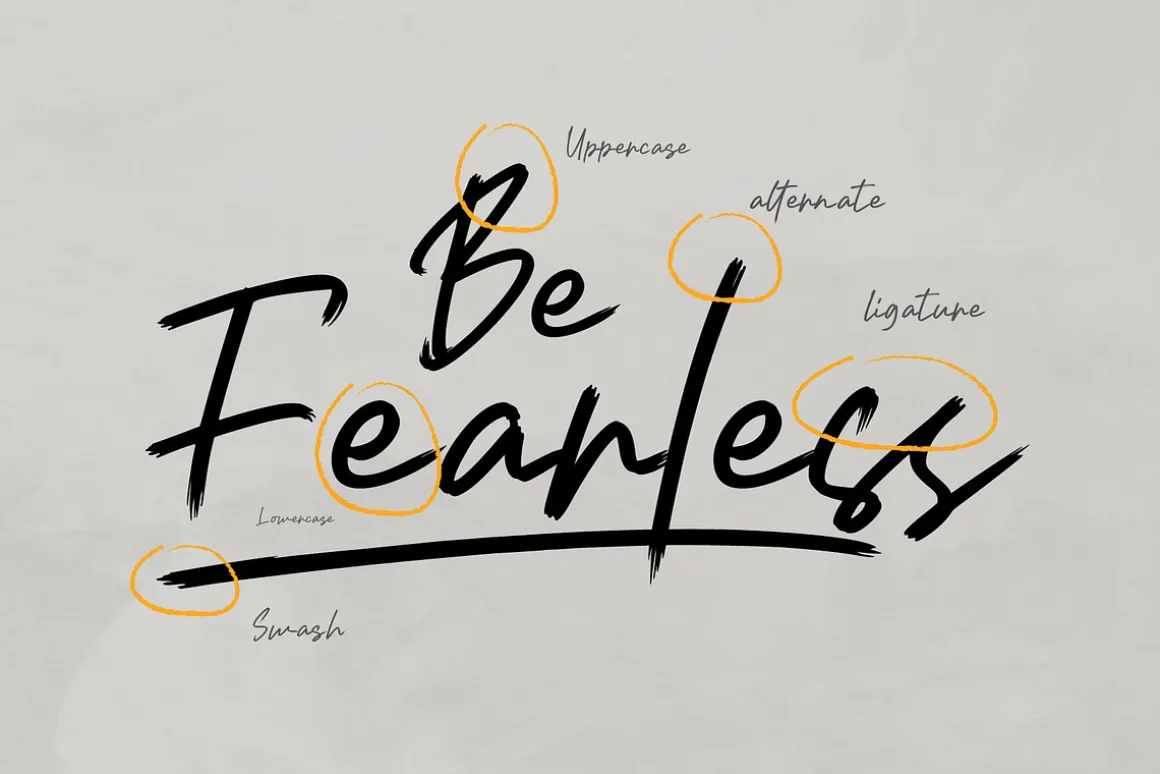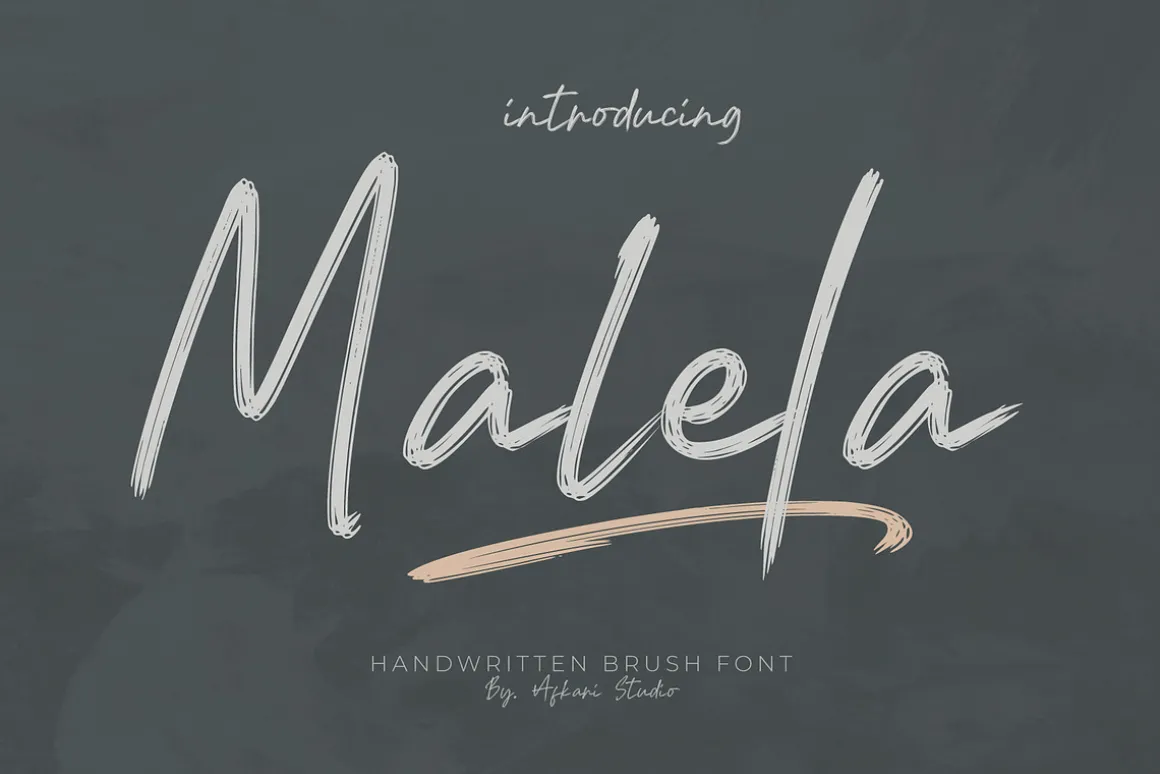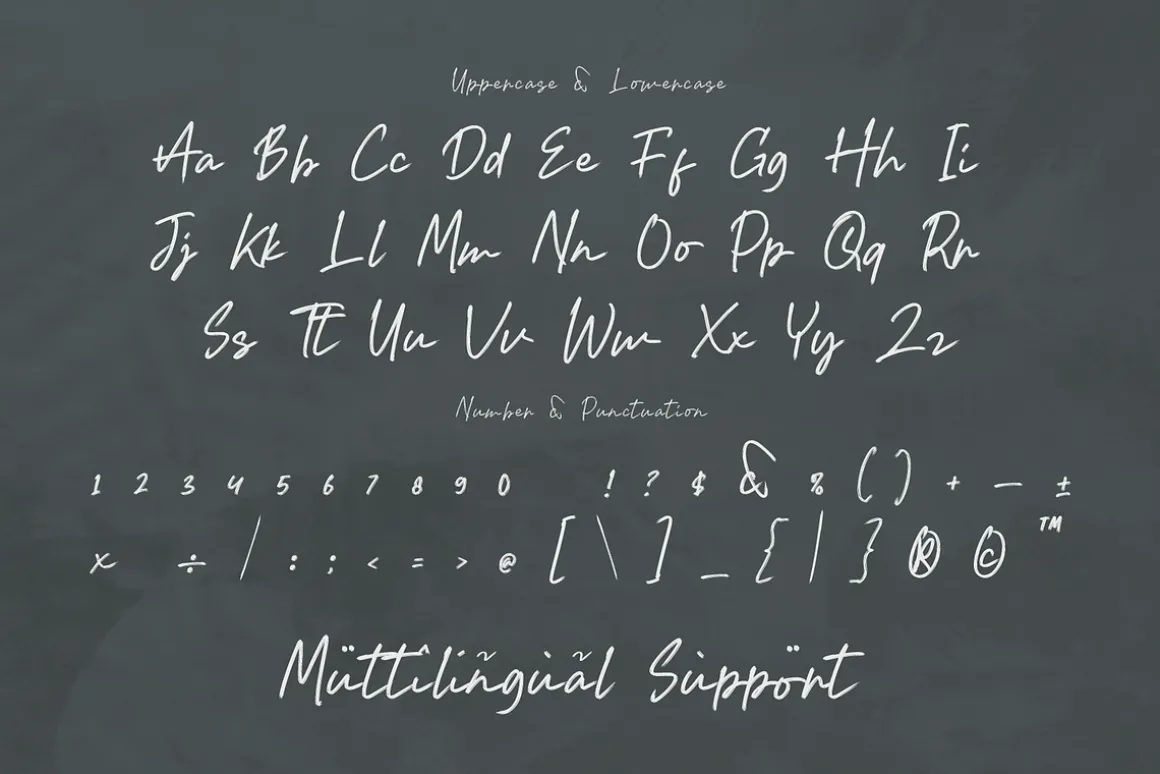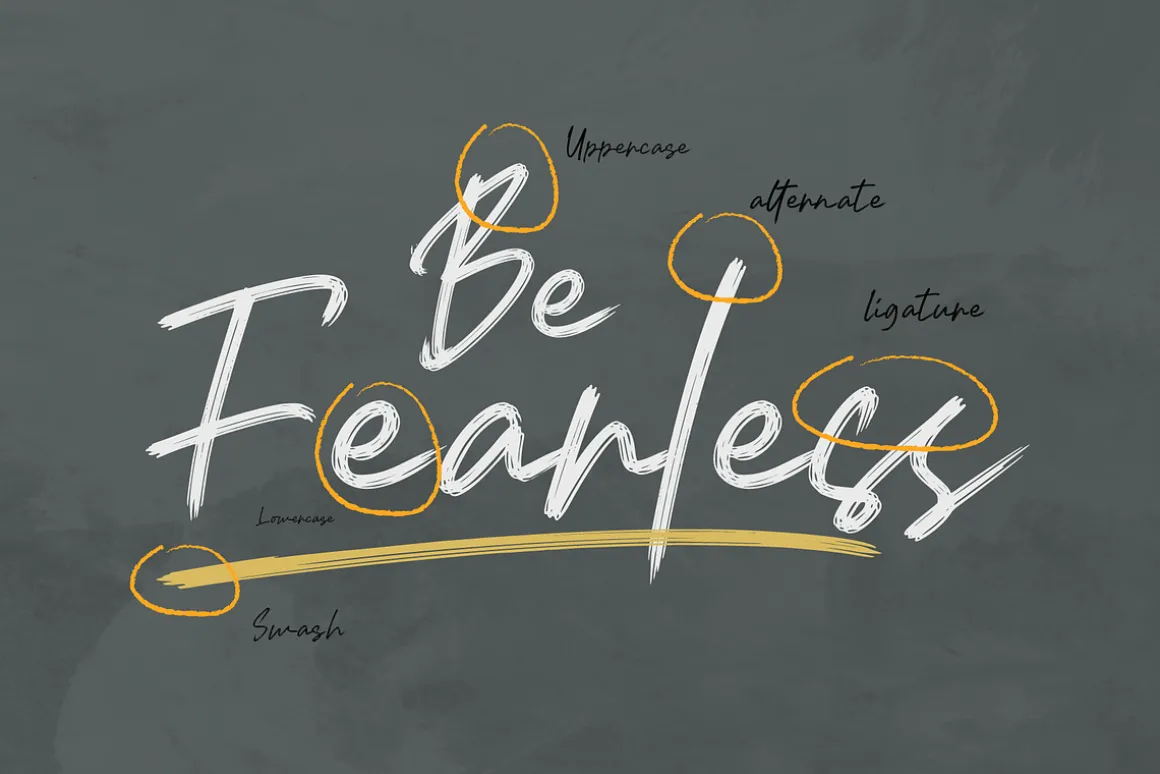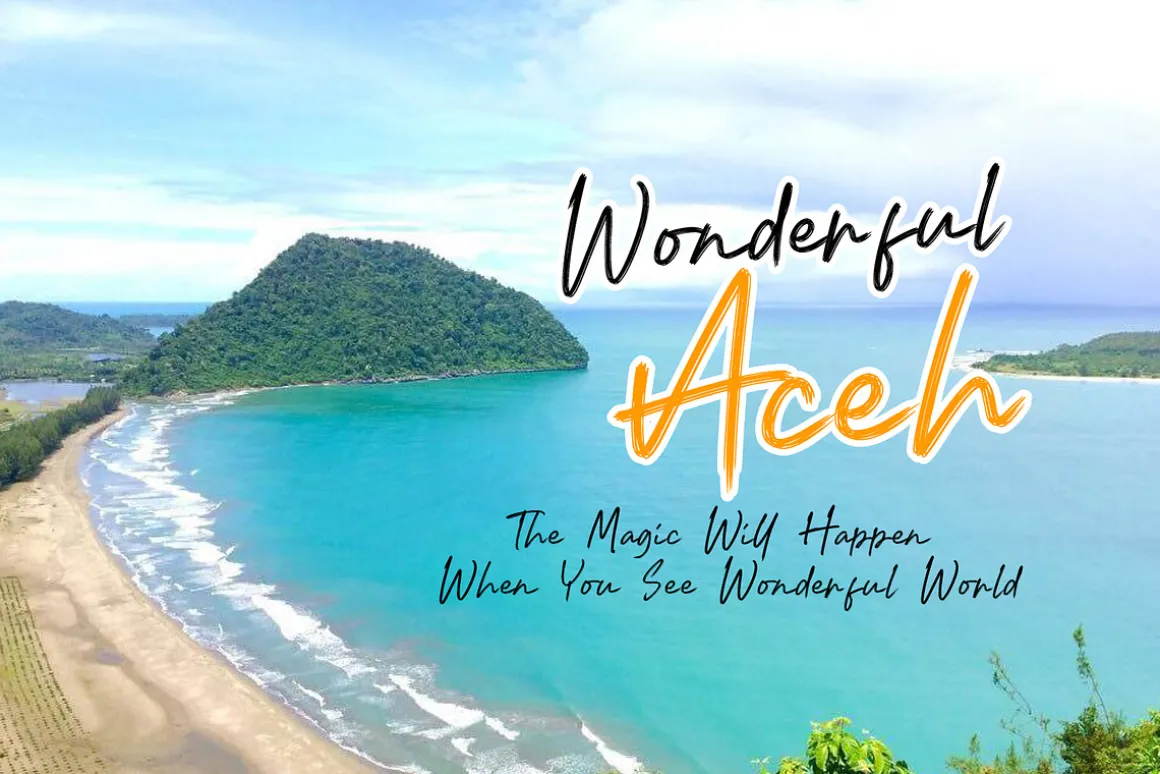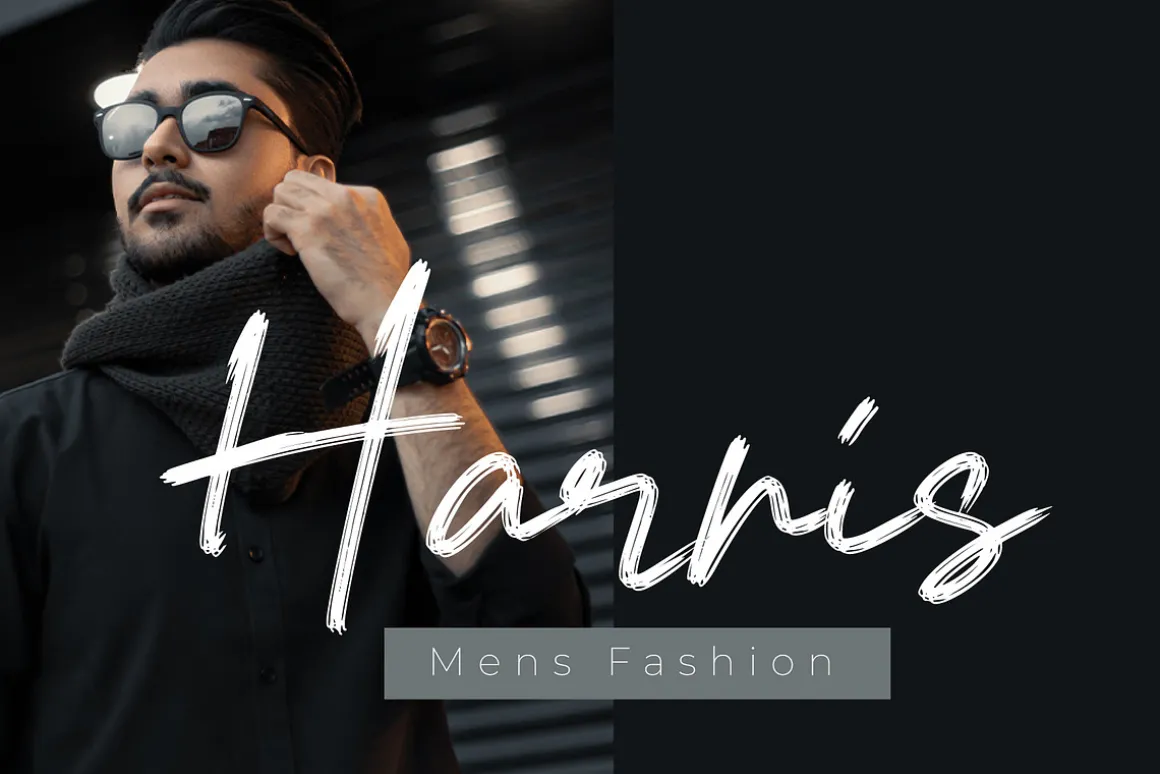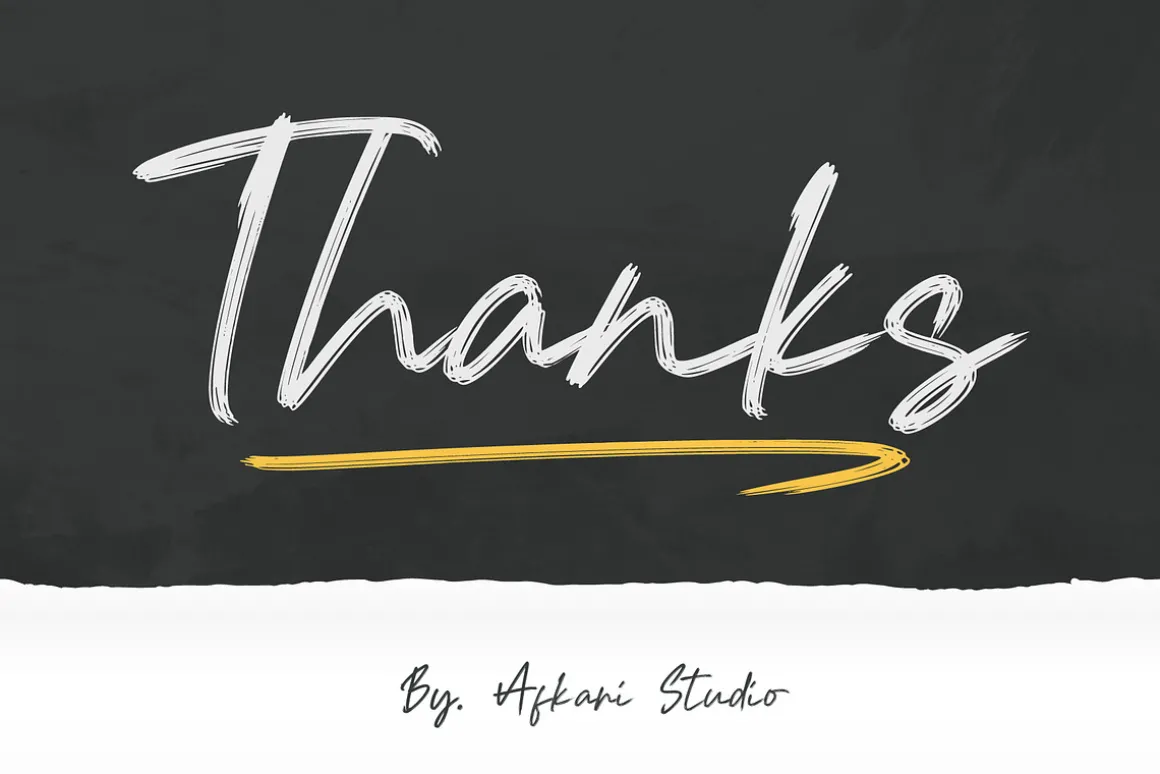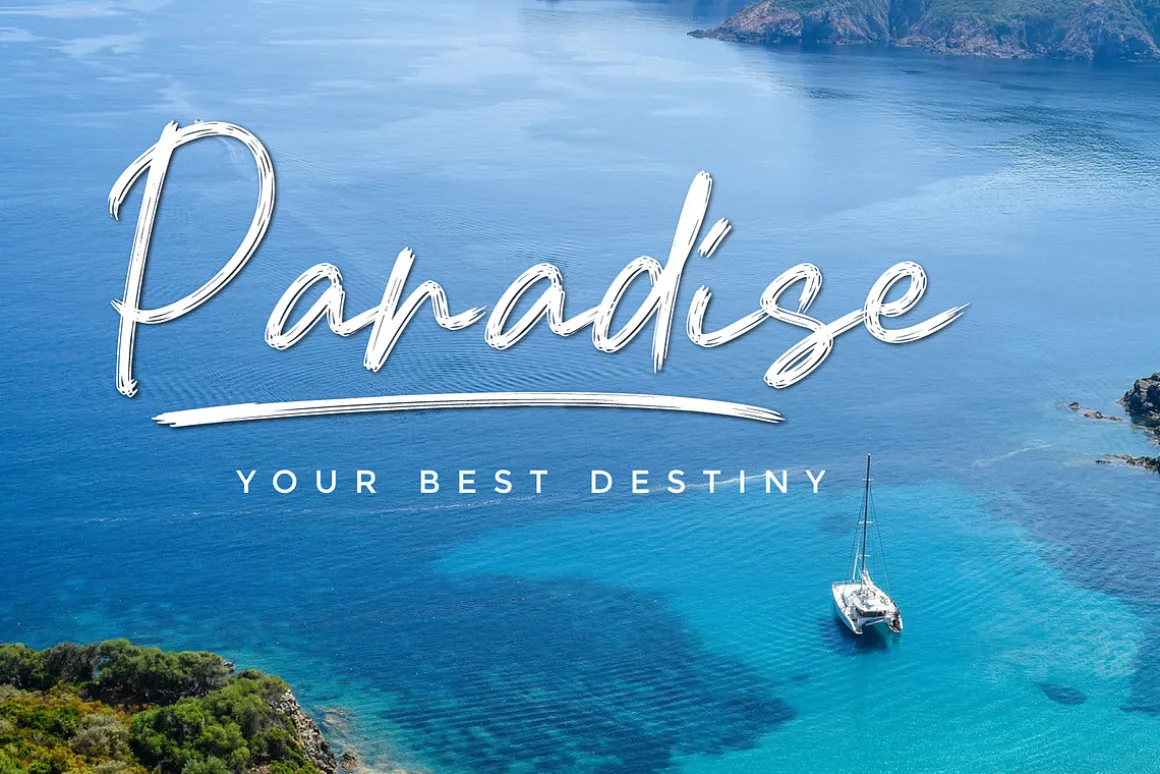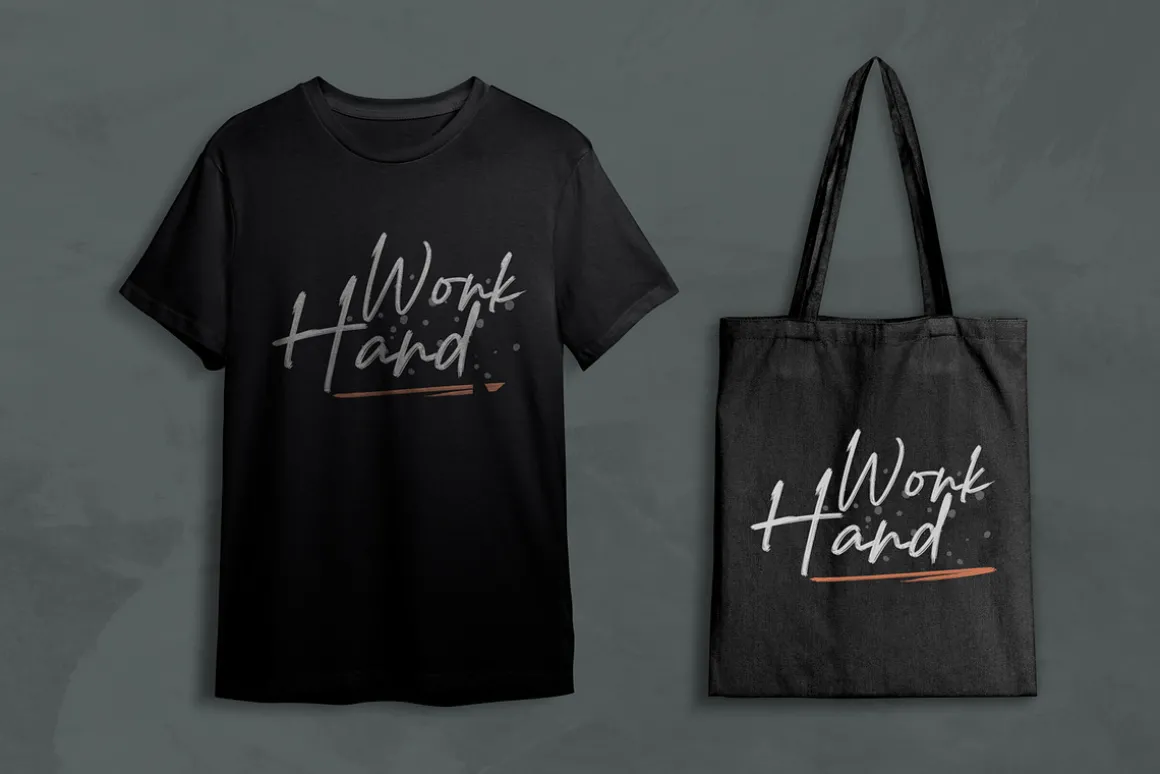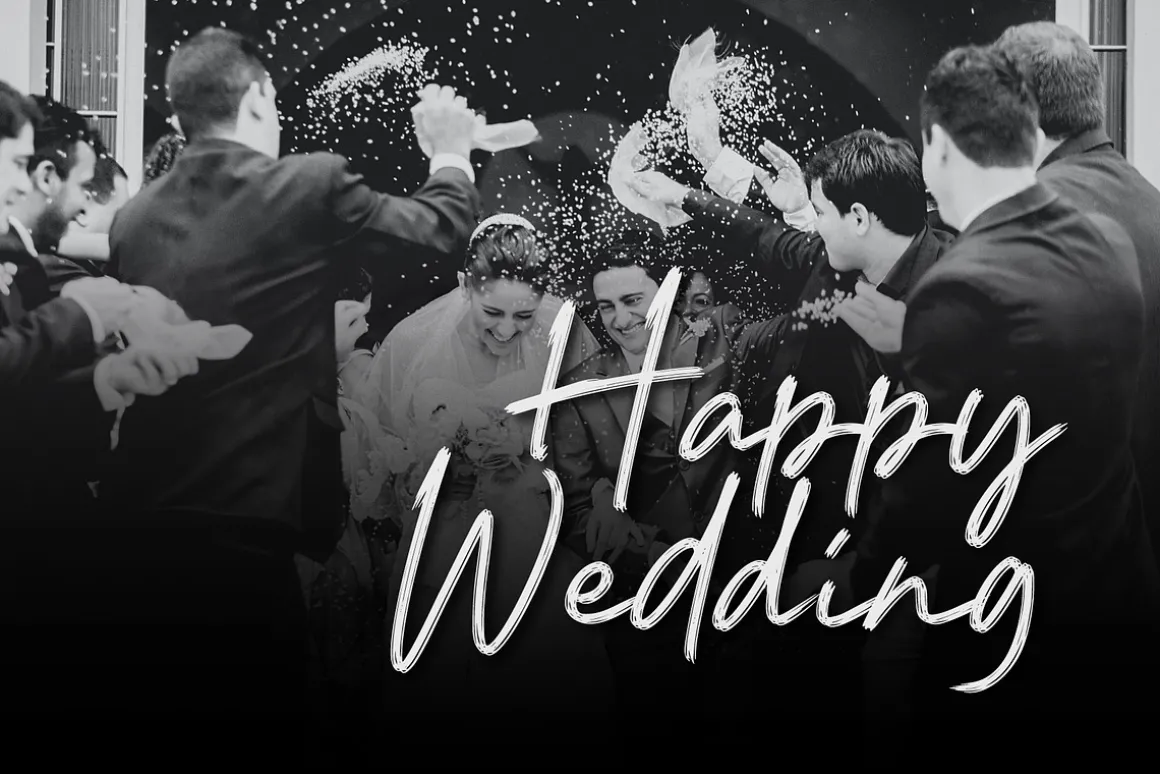
Malela Handwritten Brush Font is a Natural Handwritten brushFont script that makes with natural line handwriting. This font is suitable for any branding of your design needs, wedding invitation, romantic project, studio brand, logo, homeware designs, product packaging,social media posts, clothing, poster tiltle, cafe/resto sign and simply as a stylish text overlay to any background image.
- Uppercase, Lowercase, Number, and Punctuation
- Standart and Special Ligatures
- MültîlÃñgúãl Sùppört for; ä ö ü Ä Ö Ü ß ¿ ¡ etc.